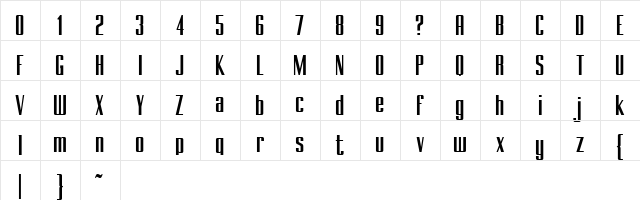
BRANCHE Regular
Design Context for BRANCHE Typeface
BRANCHE is a composed and adaptable typeface that performs quietly and consistently across a wide range of design contexts.